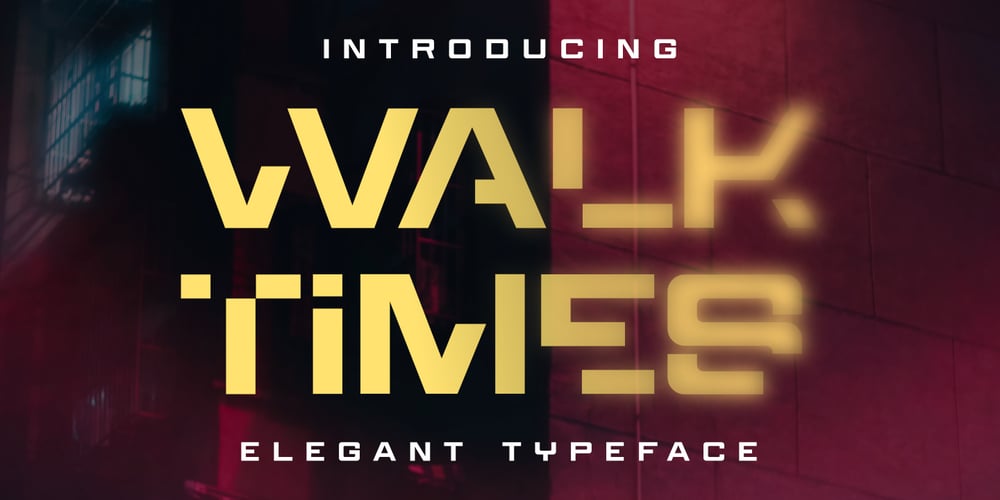
Walktimes
Walktimes font
Walktimes Font Family was designed by Toni Dzulham and published by Dumadi. Walktimes contains 1 styles and family package options. Walktimes – Elegant Typeface is a modern stylish font made for designers, a strong and elegant font can enhance project quality.Walktimes is perfect for design, logos, social media, branding, advertising, product design,film, quotes, product packaging, headers, posters, merchandise, and other designs.What’s Included :+ Walktimes + Standard glyphs+ Multilingual Accent+ Works on PC & Mac, Simple installationsAccessible in Adobe Illustrator, Adobe Photoshop, Adobe InDesign, even work on Microsoft Word. PUA Encoded Characters – Fully accessible without additional design software. Fonts include multilingual support+ Image used: All photographs/pictures/vectors used in the preview are not included, they are intended for illustration purposes only.Thanks